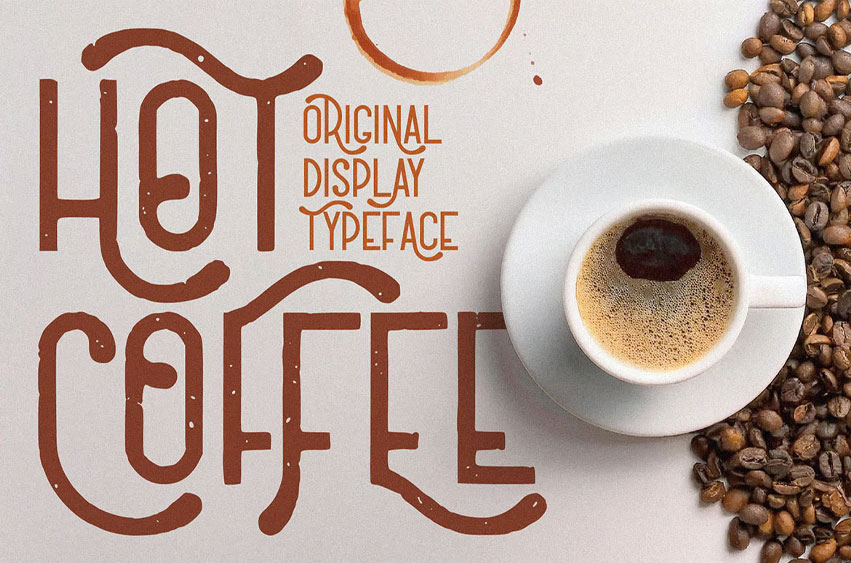
Hot Coffee Font
Hot Coffee Font Unique, creative, funny, retro, playful & art deco label sans serif font. Comes with multilingual support & alternates + 2 font versions – great for your new logo, monogram, or branding project.
• 2 font versions – regular & aged
• Multilingual support & alternates
• Great for retro or vintage-style branding projects